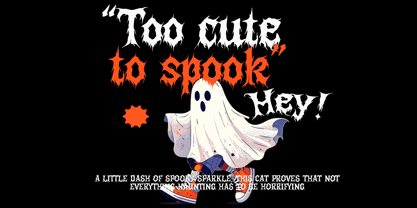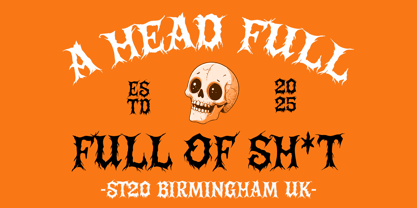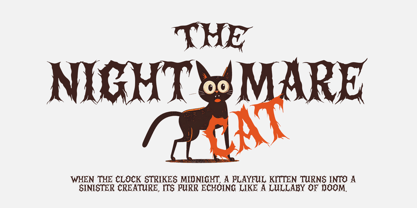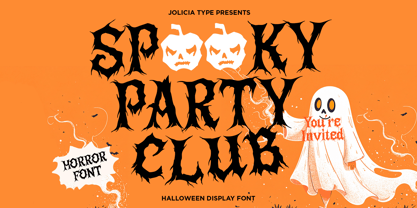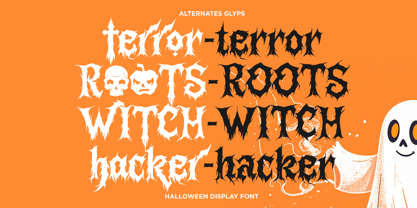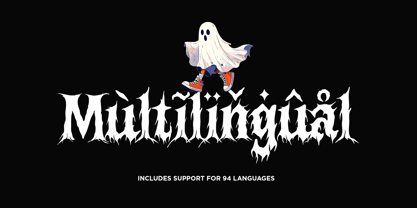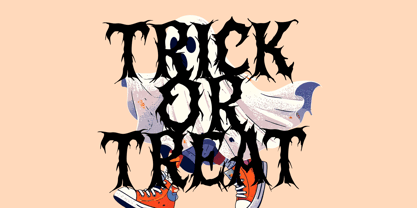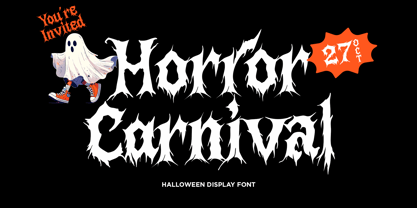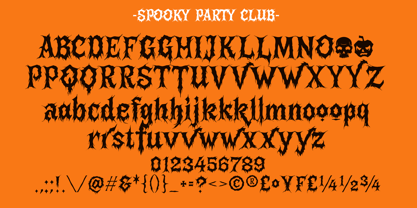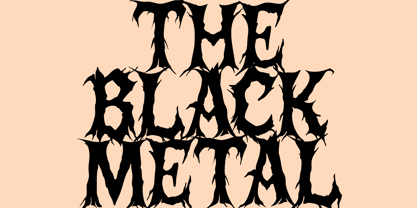
Spooky Party Club
by Jolicia Type
The Spooky Party Club Font Family was designed by Laire Banyu, Dyaharum Pungki Revitasari and published by Jolicia Type. Spooky Party Club contains 1 styles. More about this family
Spooky Party Club is a playful horror Halloween typeface that perfectly balances creepy and cheerful vibes. Each letter is crafted with intricate tree root details, giving it an eerie, twisted look while still maintaining a fun and lively personality. The organic strokes make it feel like the alphabet has grown out of the haunted forest itself spooky enough for Halloween, yet charming enough for festive party themes.
Perfect for Halloween posters, party invitations, spooky branding, trick-or-treat goodies, and anything that needs a touch of frightful fun. With its unique blend of horror aesthetics and playful energy, Spooky Party Club is ready to light up your Halloween night with creepy charm.